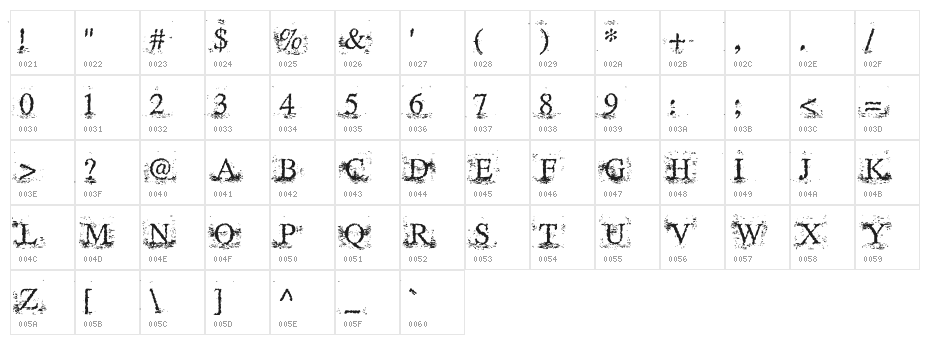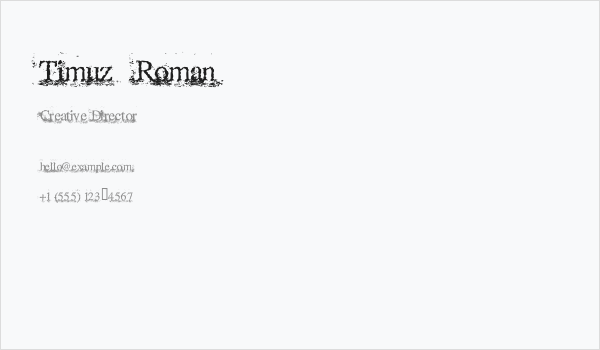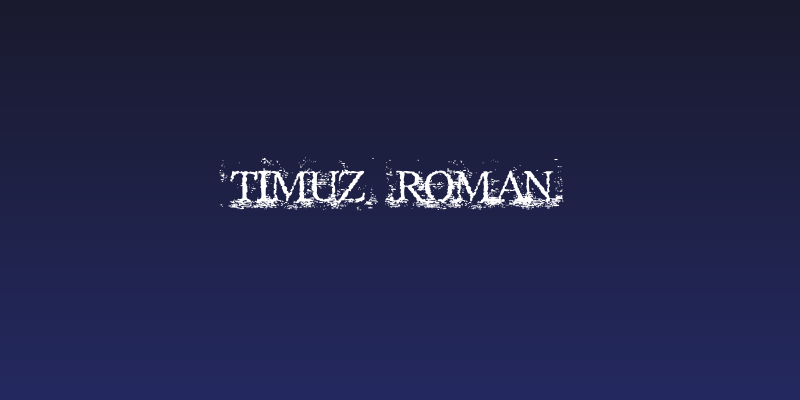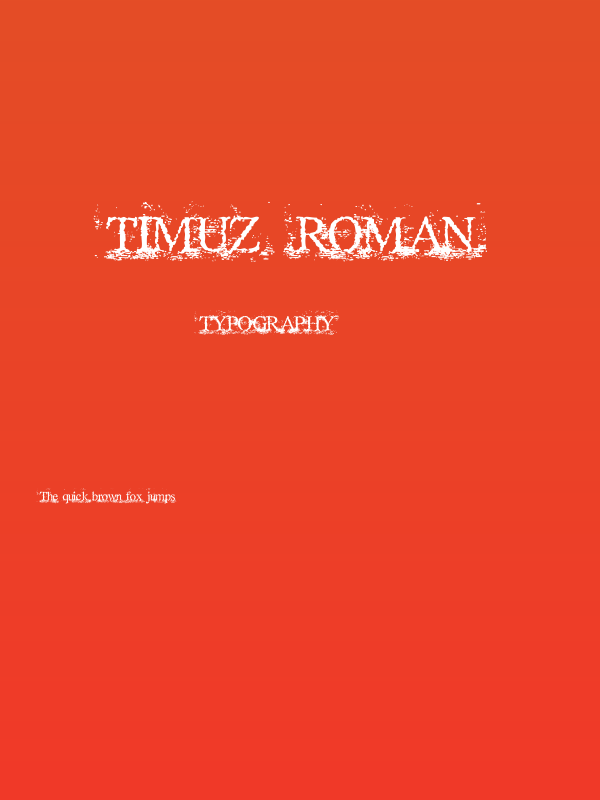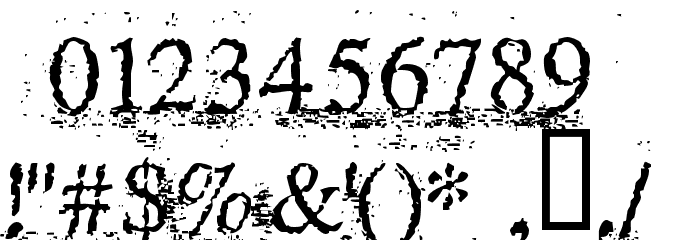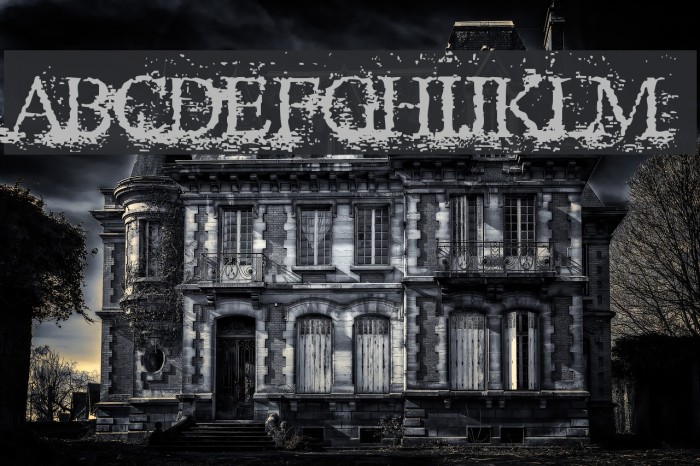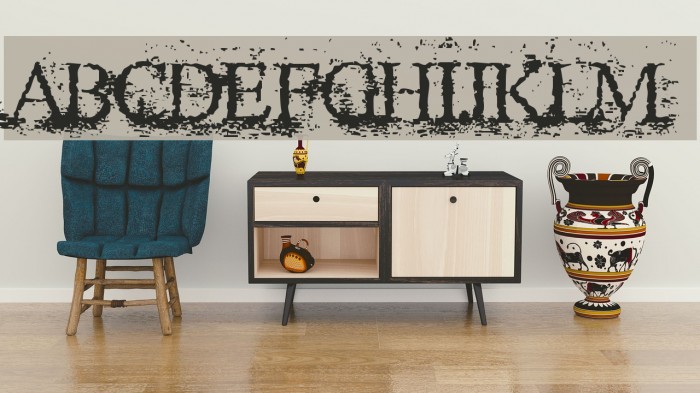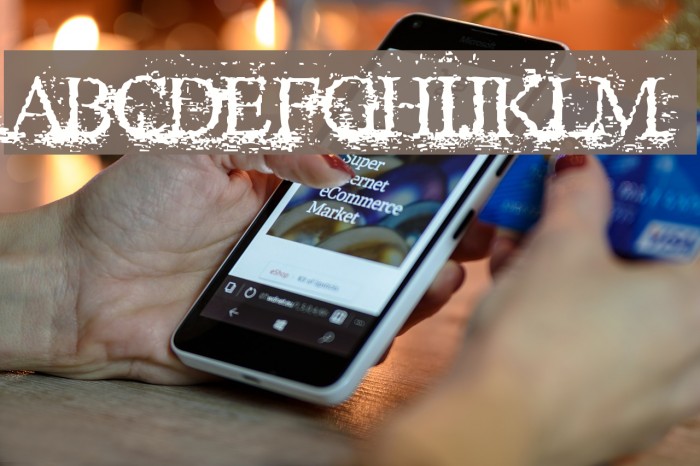
Timuz Roman Font
Timuz Roman Description
This font exhibits a distressed and textured appearance, giving it a vintage and worn-out look. The characters are serifed, with noticeable variations in stroke width, contributing to a high contrast. The texture adds a unique character, making it stand out for creative projects. The uppercase and lowercase letters maintain a consistent style, while the numerals and special characters follow the same distressed theme. This font is ideal for designs that aim to evoke a sense of history or ruggedness.
| Use Case | Headlines, Logos, Decorative text |
| Proposed Projects | Ideal for vintage posters, album covers, book titles, and branding that requires a rustic or historical touch. |